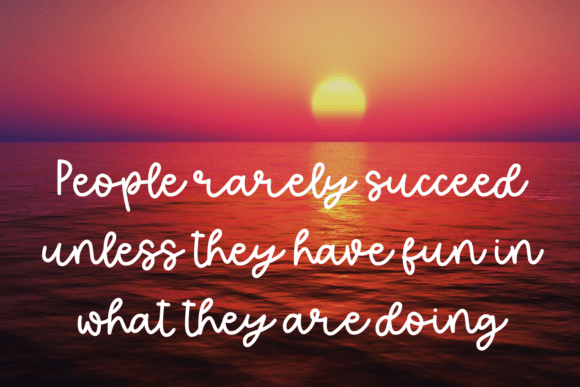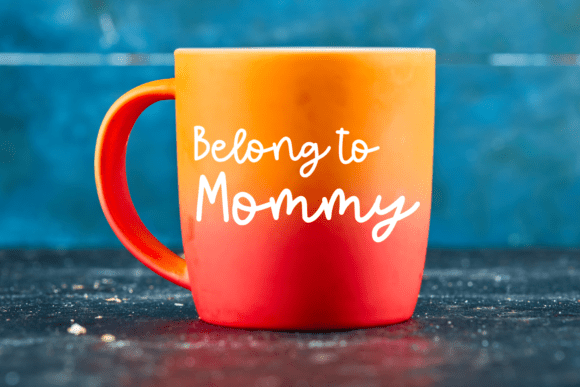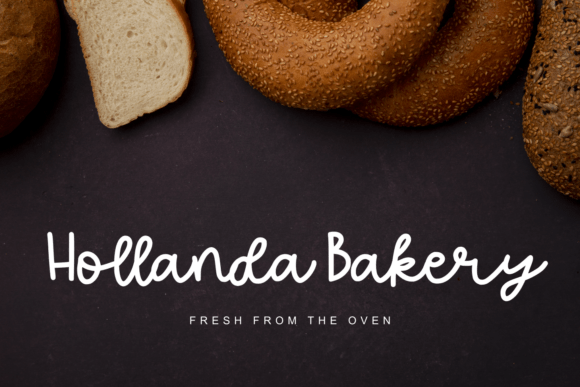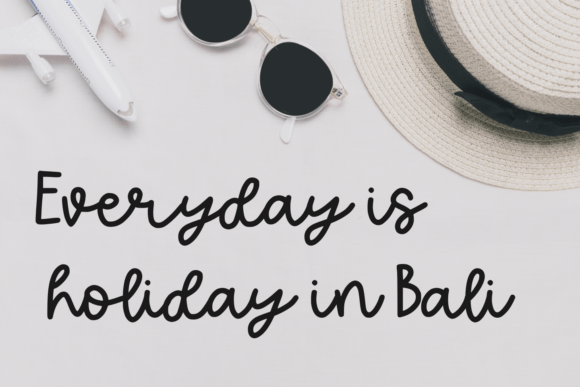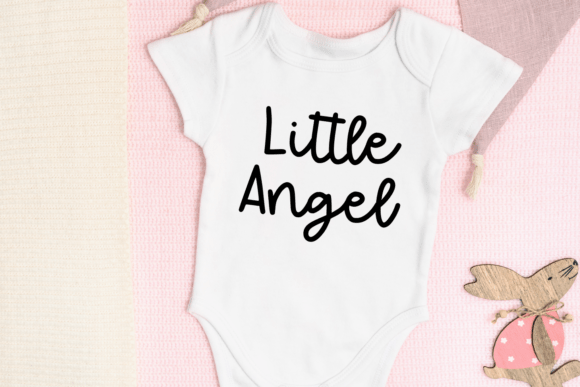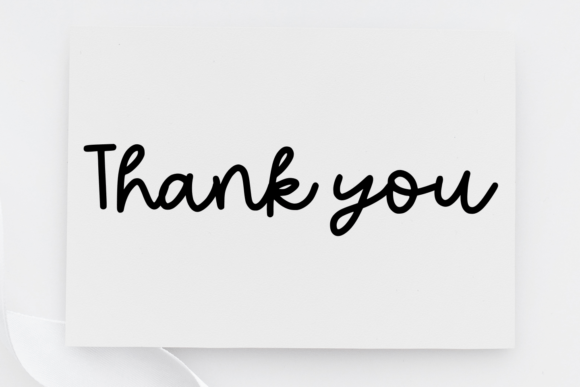
Introduction to Papaya California Font
Have you ever been working on a creative project and you just can’t seem to find the perfect font to match your design’s tone and style? I’m sure we’ve all been there – scrolling through font libraries, testing different combinations, and still not quite finding the right fit. But what if I told you that I’ve recently discovered a game-changing font that’s sure to elevate your designs and bring a touch of modern elegance to your work?
Meet Papaya California Font, a stunning monoline script font that’s perfect for designers looking for a clean and sophisticated look without sacrificing clarity. With its smooth strokes and effortless flow, this typeface is ideal for logos, quotes, invitations, and branding projects where a personal, handwritten feel is desired.
As a valuable resource for designers, Papaya California Font is a high-quality addition to any design toolkit. Its versatility makes it easy to pair with both serif and sans-serif fonts, giving your work a fresh and contemporary look. And the best part? It’s available for free download, making it an excellent choice for designers of all levels.
Key Features of Papaya California Font
• Papaya California Font is a high-quality design resource ideal for various creative projects, offering a unique and stylish touch.
• This font family includes a wide range of characters, making it suitable for various languages and applications.
• Papaya California Font supports a transparent background, providing flexibility for designers working on projects with complex backgrounds.
• Its unique characteristics, such as its modern and elegant design, make it an excellent choice for designers working on branding, advertising, and packaging projects.
Honest Review: Papaya California Font
I recently had the opportunity to work with the Papaya California Font, and I’m excited to share my honest review with you. As a designer, I’m always on the lookout for high-quality fonts that can elevate my creative projects. Papaya California Font definitely delivers.
• ✨ Unique and stylish design that adds a touch of sophistication to any project
• ✨ High-quality font that’s perfect for both digital and print designs
• ✨ Transparent background option allows for seamless integration into any design
• ⚠️ Limited font styles available, which may not be suitable for all design projects
Overall, I’m impressed with the Papaya California Font. Its unique design and high-quality rendering make it an excellent addition to any designer’s toolkit. While it may have some limitations, I believe it’s a valuable resource for designers working on creative projects.
The Papaya California Font is a high-quality design resource perfect for creative projects. With its unique and stylish design, it’s ideal for various applications, including branding, advertising, and more.
Tips for Getting the Most Out of Papaya California Font
Here are some tips to help you get the most out of the Papaya California Font:
• Use the font in conjunction with other high-quality design elements to create a cohesive look.
• Experiment with different font sizes and colors to add visual interest to your designs.
• Use the font in a variety of creative projects, such as branding, advertising, and more.
Common Use Cases for Papaya California Font
The Papaya California Font is ideal for a variety of use cases, including:
What file format does the Papaya California Font come in, and how do I use it with a transparent background?